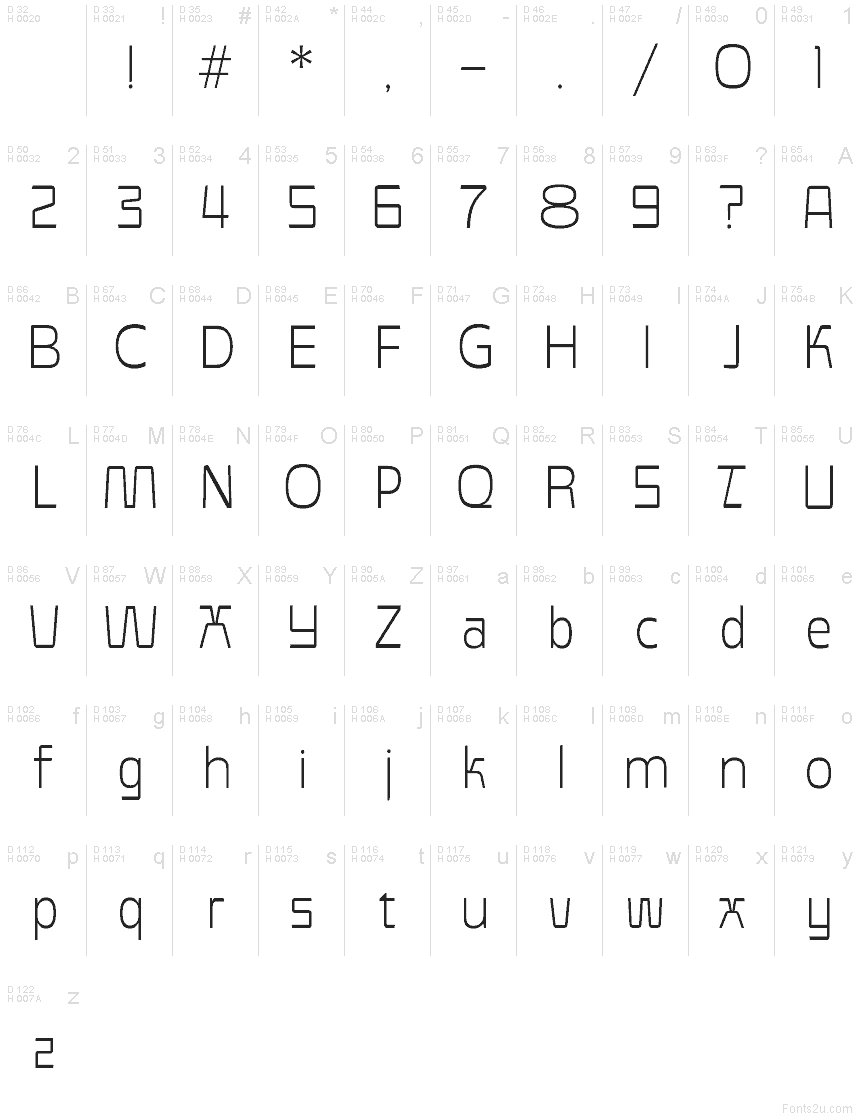
SG Takimon Thin DEMO
SG Takimon Thin font by Studio Gulden is a free futuristic thin sans serif typeface. Its signature look comes from razor‑fine strokes, squared bowls, and clipped corners that snap like circuitry. Letters lean geometric yet stay open and airy, with a zigging rhythm that feels engineered rather than ornamental. Within the SG Takimon family, this Thin cut delivers a sleek, weightless presence without losing character.
Using SG Takimon Thin, headlines and logos get a cool, technical sheen that still reads clean. It shines on tech branding, UI hero text, sci‑fi posters, premium packaging, editorial titles, motion graphics, and album art. Track it slightly tighter at large sizes to emphasize the crisp facets. Pair this free font with a neutral grotesk for body copy to keep layouts balanced and readable.